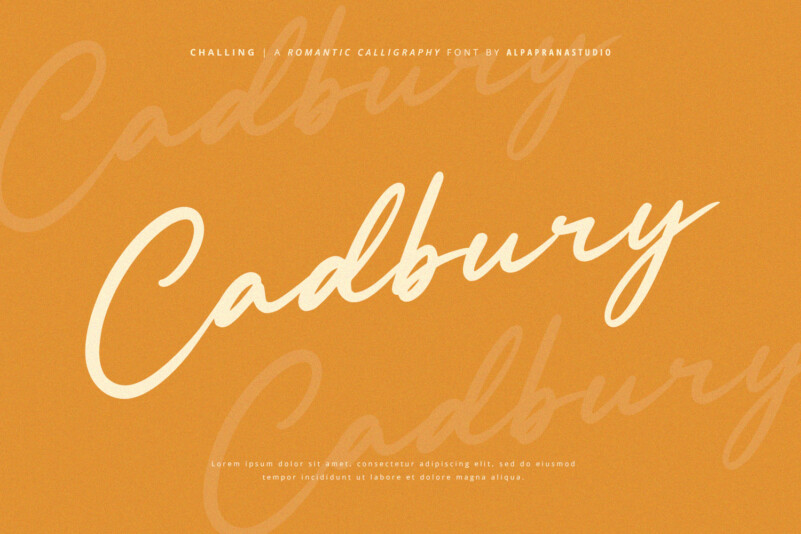
Challing Font
Challing Font is a stylish and incredibly elegant script font. It looks stunning on wedding invitations, thank you cards, quotes, greeting cards, logos, business cards and every other design which needs a handwritten touch.